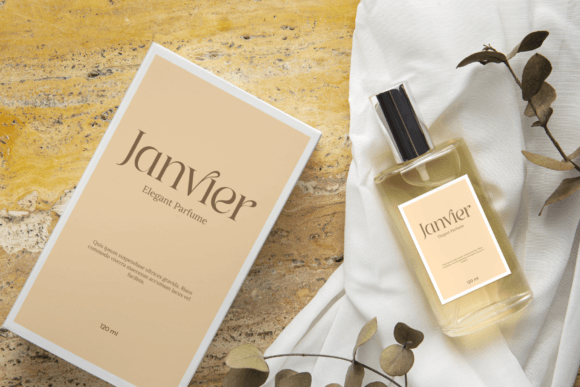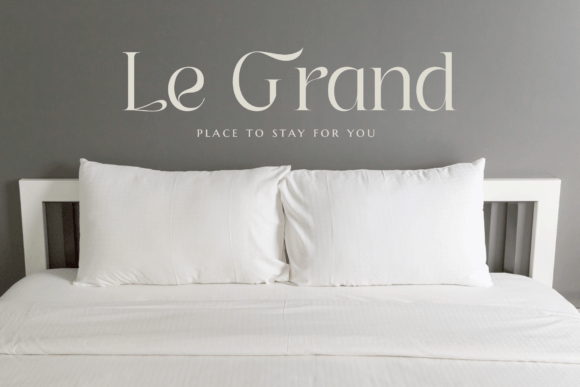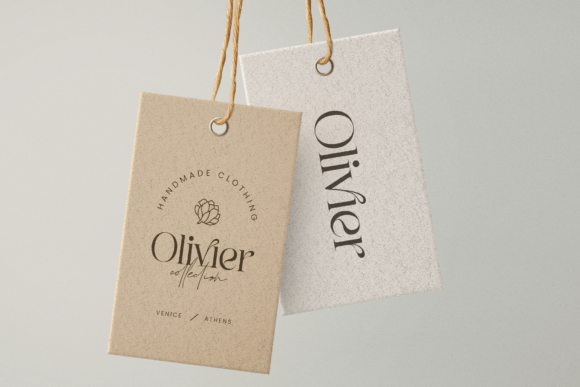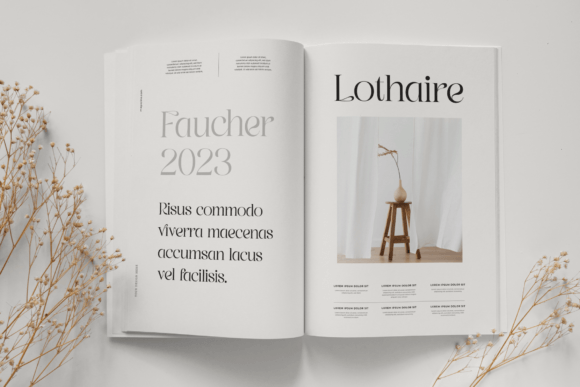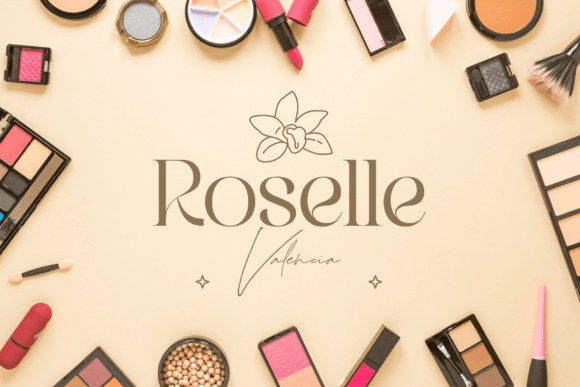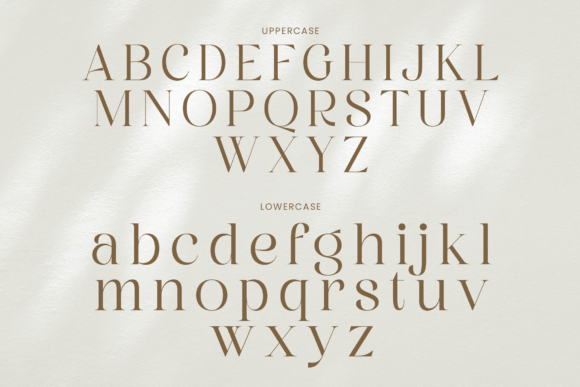
Introducing Graphire Font: Elevate Your Designs with Elegance and Sophistication
In the world of typography, a font can make or break the visual identity of a brand. For designers and crafters seeking to infuse their projects with a touch of sophistication and modern elegance, Graphire Font emerges as a game-changer. This stunning serif typeface, with its unique twist, leverages the contrast between lines and curves to create a distinctive aesthetic that can elevate any design.
The Essence of Graphire Font
Graphire is not just another serif typeface; it’s a modern, elegant font designed to add a touch of refinement to your branding projects, logos, wedding designs, social media posts, advertisements, product packaging, and more. Its versatility makes it an ideal choice for a wide range of applications, from product designs and labels to photography, watermarks, invitations, stationery, and any project that requires a hint of handwriting elegance.
Key Features of Graphire Font
- Modern Elegance: Graphire boasts a contemporary design that exudes elegance and sophistication, making it perfect for brands looking to make a statement.
- Unique Twist: The font’s distinctive twist lies in its use of contrast between lines and curves, adding depth and character to your designs.
- PUA Encoded: Being PUA (Private Use Area) encoded, Graphire allows easy access to all its amazing glyphs and ligatures, ensuring that you can fully unleash your creativity.
- Versatility: Whether it’s for branding, digital content, print materials, or personal projects, Graphire adapts seamlessly, offering flexibility across various mediums.
Applications of Graphire Font
The versatility of Graphire Font makes it suitable for a myriad of design projects. Here are some of the areas where Graphire truly shines:
- Branding Projects: Establish a strong brand identity with a font that communicates sophistication and elegance.
- Logos: Create memorable logos that stand out with Graphire’s unique and stylish characters.
- Wedding Designs: Add a touch of romance and luxury to wedding invitations, decor, and related materials.
- Social Media Posts: Elevate your digital content with a font that captures attention and conveys a sense of style.
- Advertisements: Use Graphire to create compelling ads that reflect a high-end aesthetic.
- Product Packaging: Make your products stand out on shelves with packaging that exudes quality and sophistication.
- Product Designs: Incorporate Graphire into your product designs for a cohesive and appealing look.
- Labels and Photography: Use Graphire for labels and watermarks to add a professional touch to your photography.
- Invitations and Stationery: Impress your guests and clients with beautifully designed invitations and stationery.
Why Choose Graphire Font?
In a sea of fonts, Graphire stands out for several reasons:
- Unique Design: Its blend of modern elegance and classic serif elements makes it a rare find.
- Ease of Use: Being PUA encoded, it’s incredibly user-friendly, allowing for effortless access to its extensive features.
- Versatility: Graphire’s adaptability across various projects and mediums makes it a valuable asset for any designer or crafter.
- Sophistication: It brings a level of sophistication that’s hard to achieve with standard fonts.
Graphire Font is more than just a typeface; it’s a design statement. With its modern elegance, unique twist, and versatility, it’s poised to become an indispensable part of your design toolkit. Whether you’re a professional designer or a DIY crafter, Graphire offers the perfect blend of style, sophistication, and creativity to take your projects to the next level. Embrace Graphire, and let its distinctive charm redefine the visual identity of your brand or personal projects.